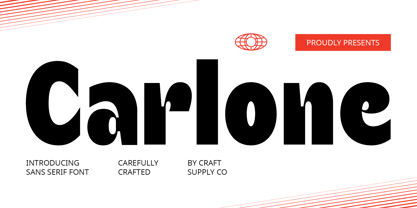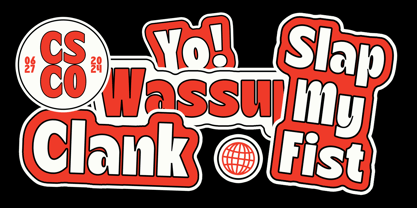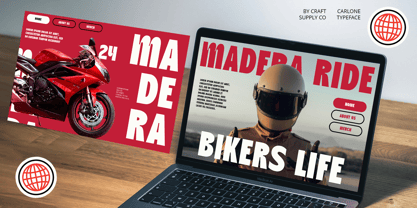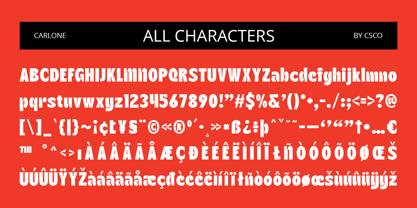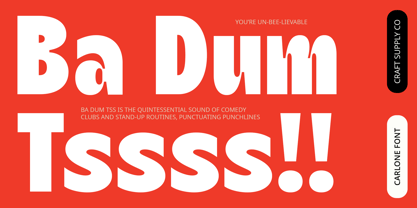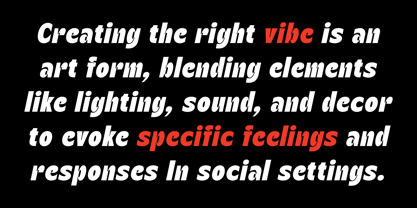
Carlone
Carlone – Sans Serif Font: Bold and Prominent Sans Serif Typeface
Characterized by Strength and Boldness
Carlone is a bold sans serif font characterized by its strong and prominent features. With thick strokes and a modern design, it conveys a bold and impactful impression.
Ideal for Emphasizing Titles and Headlines
This type of font is perfect for emphasizing titles or text that requires strong visual emphasis. Whether used in posters, headlines, or branding materials, Carlone stands out with its clear and decisive appearance.
Clear and Direct Attention
The strength of Carlone lies in its ability to attract attention clearly and decisively. Free from serifs or additional decorations, it ensures readability and impact in various design contexts.
Versatile Usage
Carlone is versatile and suitable for a wide range of applications where a bold and modern typographic style is needed. Its strong presence makes it effective in both digital and print media, enhancing visual communication and brand identity.
Conclusion
In conclusion, Carlone is a bold sans serif font that combines strength and modernity. Ideal for designs requiring clear and decisive visual impact, this font ensures readability and enhances the prominence of typographic elements in diverse design projects.